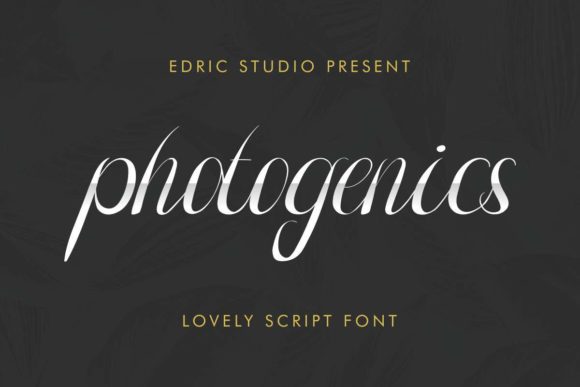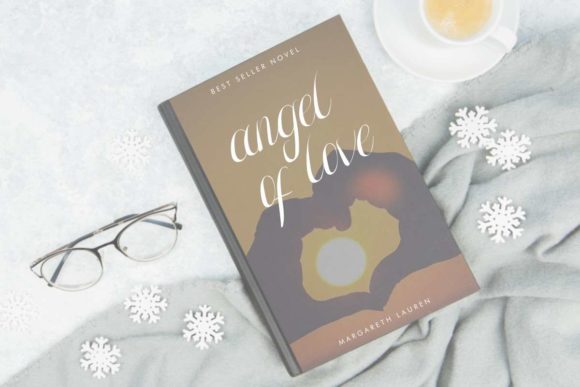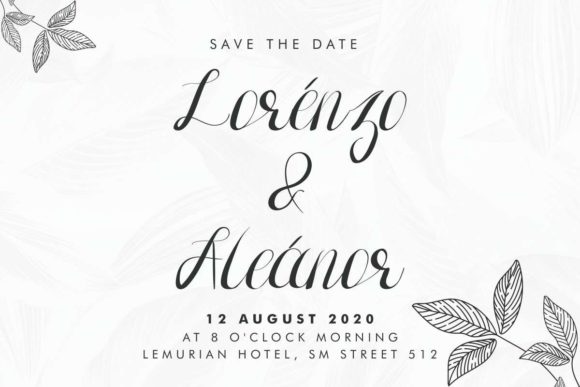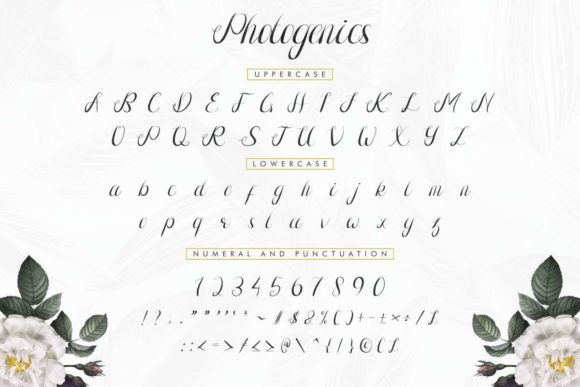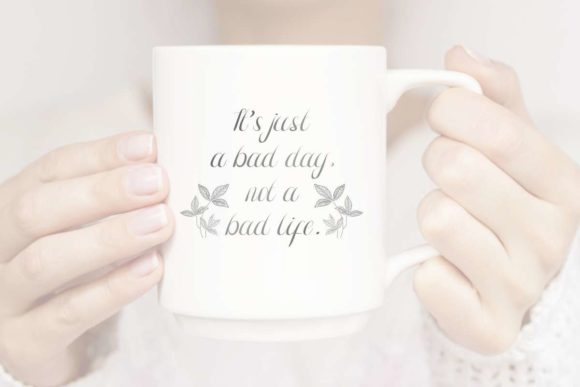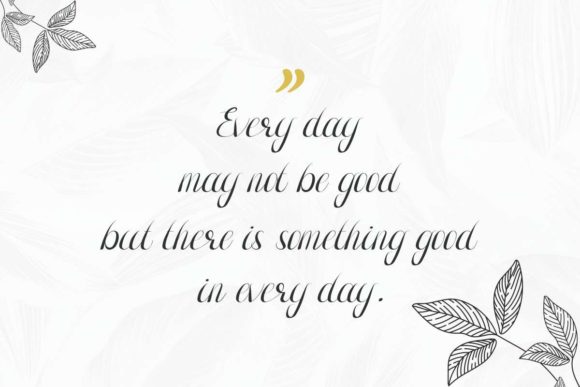
Introduction to Photogenics Font
Have you ever sat down at your desk, surrounded by blank pages and a flickering light, waiting for inspiration to strike? This is where the magic happens, and for designers, it’s not just about conjuring up ideas, but also about finding the perfect tools to bring them to life. For many, the search for the perfect font is an essential part of the creative process.
Enter the Photogenics Font, a stunning handwritten font that feels equally charming and elegant. With its smooth lines, gorgeous glyphs, and stunning alternates, it’s a design resource that’s sure to elevate any creative project.
What sets Photogenics Font apart is its unique combination of high quality and versatility. Whether you’re working on a design project that requires a free download or a commercial project that demands a premium feel, this font is an excellent choice. With its transparent background and seamless integration, it’s the perfect addition to any design arsenal.
Key Features of Photogenics Font
- Large character set: The font includes a large character set, making it suitable for use in a variety of languages and creative projects.
- Perfect for design projects: The Photogenics Font is ideal for use in creative projects such as branding, advertising, and editorial design, where a high-quality, unique font is essential.
Honest Review: Photogenics Font
As a designer, I’m always on the lookout for high-quality fonts that can elevate my creative projects. I recently had the chance to try out the Photogenics Font, and I must say it’s been a game-changer.
Here are some things that work well: ✨ Unique style: The Photogenics Font has a distinct, futuristic feel that’s perfect for modern designs. ✨ High quality: The font is crisp and clear, even at larger sizes. ✨ Transparent background: This makes it easy to layer the font over other design elements without any issues.
- Perfect for design resources: The Photogenics Font is ideal for use in design resources, such as infographics and presentations.
However, there are a few limitations: ⚠️ Limited font styles: While the font has a unique style, it’s limited to a few different variations. ⚠️ Not suitable for all designs: The futuristic feel of the font may not be suitable for all types of designs.
Overall, I’m really impressed with the Photogenics Font. It’s a great addition to my design arsenal, and I’ll definitely be using it for future projects. If you’re looking for a high-quality font for your creative projects, I’d definitely recommend giving the Photogenics Font a try.
Common Use Cases for Photogenics Font
Photogenics Font is ideal for designing social media graphics, posters, and flyers. It’s also suitable for creating presentations, documents, and digital art. The high-quality design resource offers endless possibilities for creative expression.